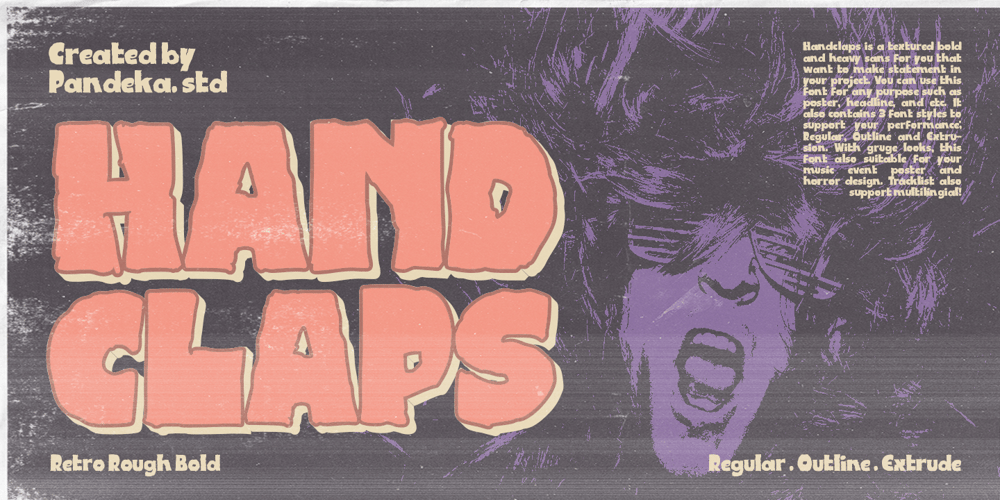
Handclaps Font Family was designed by Sagara Nararya and published by Pandeka Studio. Handclaps contains 3 styles and family package options. Handclaps is a textured bold and heavy sans for you that want to make statement in your project. You can use this font for any purpose such as poster, headline, and etc. With gritty and rough looks, this font also suitable for your music and album design. Handclaps also support multi language!Handclaps comes in three versions – Regular, Outline, and Extrude version. With three different style fonts, you can easily create eye-catching designs without any extra effortFeatures : Handclaps Main Files Regular, Outline and Extrude family Instructions (Access special characters in all apps, even in Cricut Design) Accessible in Adobe Illustrator, Adobe Photoshop, Microsoft Word even Canva! PUA Encoded Characters. Fully accessible without additional design software We highly recommend using a program that supports OpenType features and Glyphs panels like many of Adobe apps and Corel Draw, so you can see and access all Glyph variations.If you need a custom license or have questions, please email to: pandekastudio@gmail.comThank youPandeka Studio